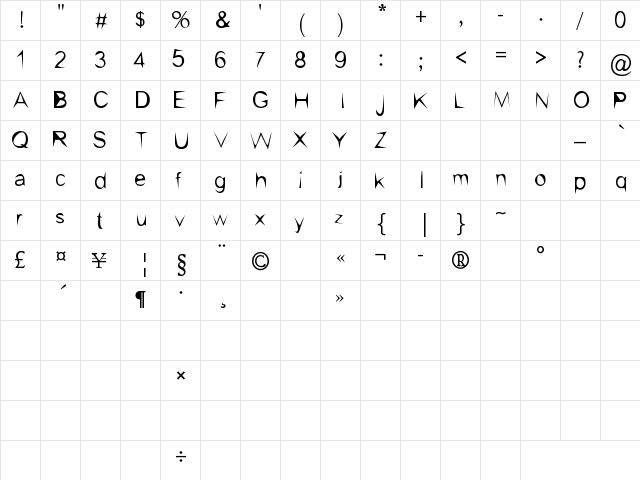
kishore-sharp Regular
Design Context for kishore-sharp Typeface
kishore-sharp offers clean, dependable letterforms without strong stylistic allegiance, making it a practical choice for designers who need flexibility.